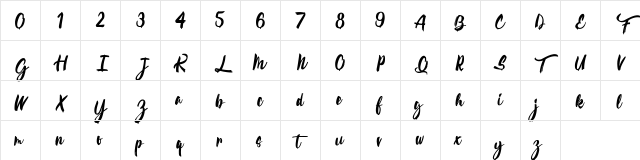
Complete Calypsoka One Regular glyph index. Displaying only characters natively supported by Calypsoka One Regular font.
Calypsoka One is a composed and adaptable typeface that performs quietly and consistently across a wide range of design contexts.